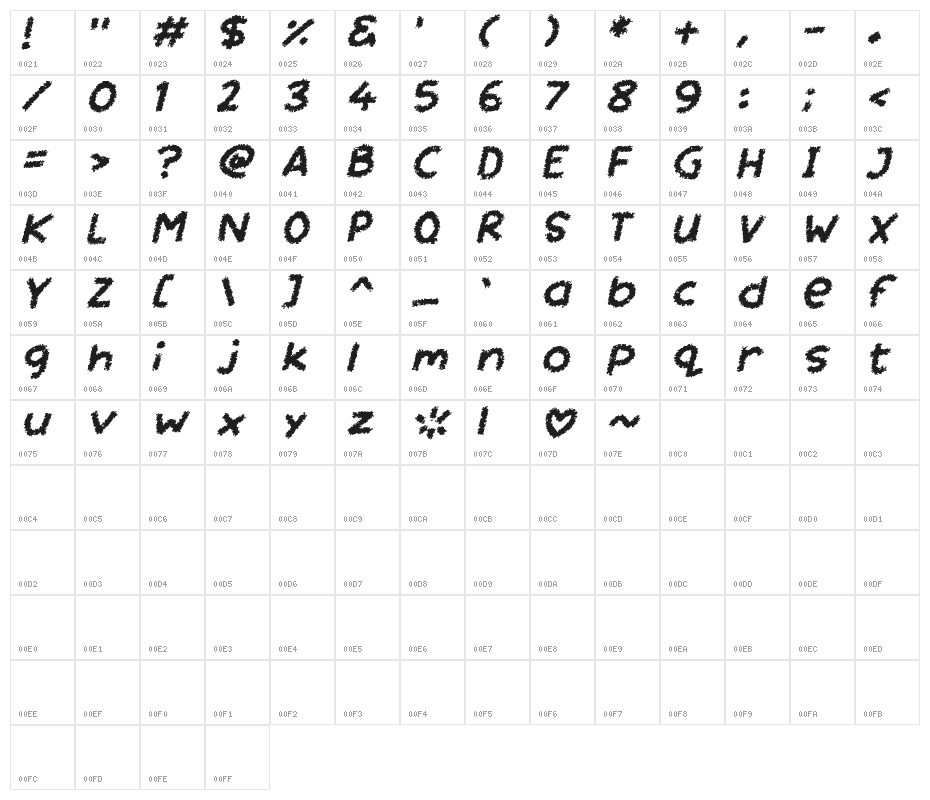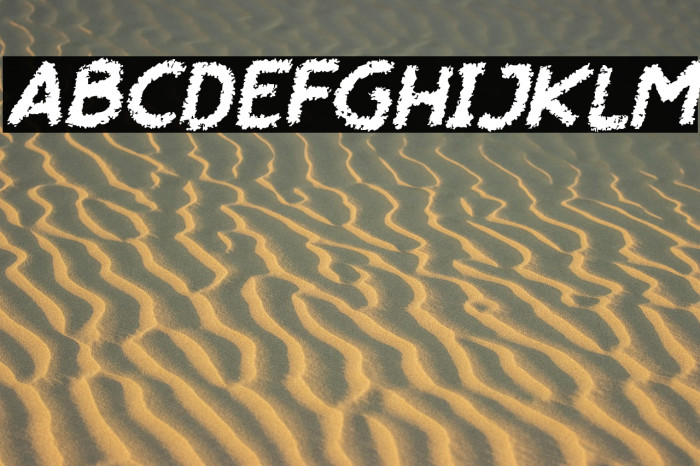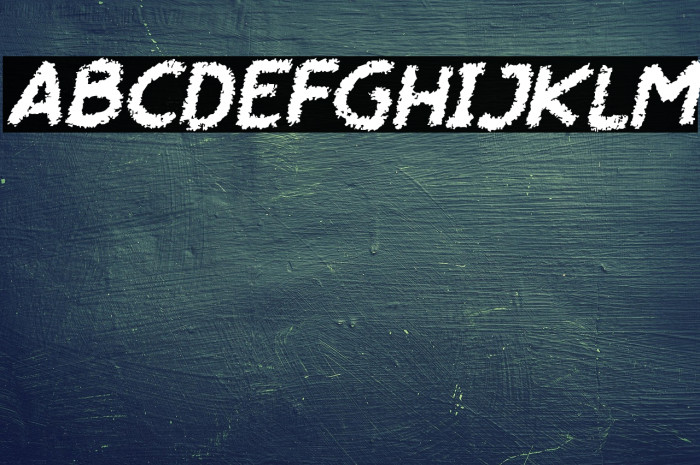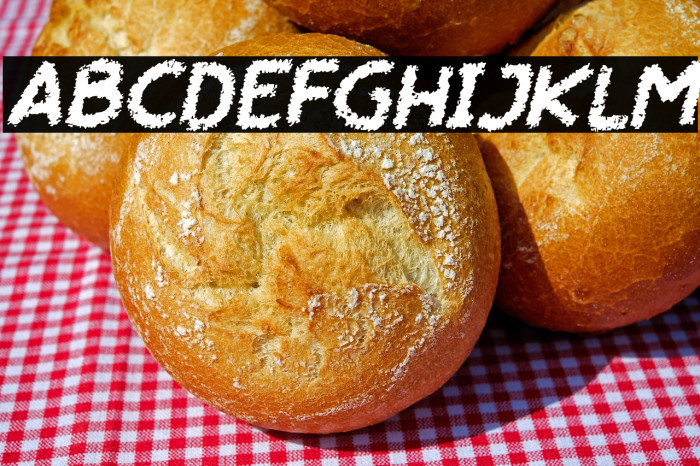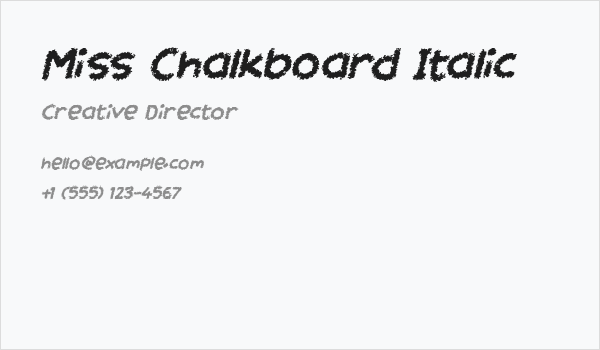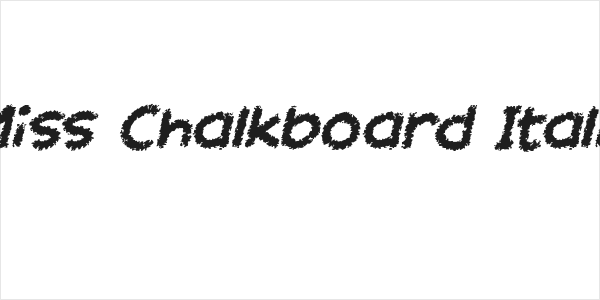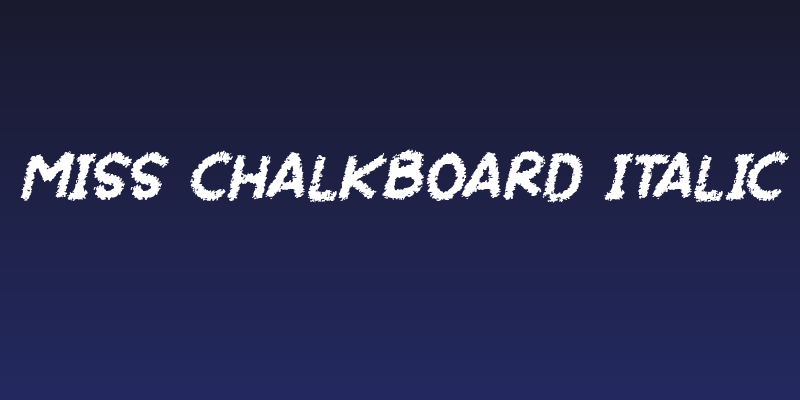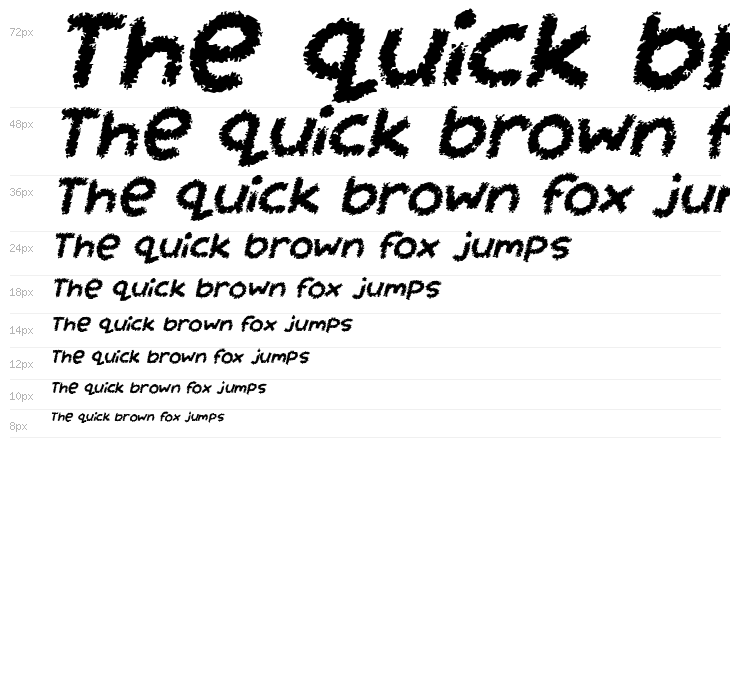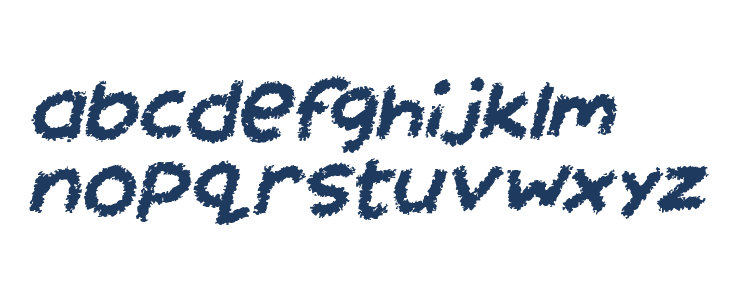
Miss Chalkboard Italic Font
Miss Chalkboard Italic Description
This font exudes a playful and dynamic energy, reminiscent of chalk writing on a blackboard. The characters are bold and slightly italicized, giving them a sense of movement and spontaneity. The edges are rough and textured, mimicking the effect of chalk dust, which adds a tactile quality to the typeface. This style is both informal and approachable, making it ideal for creative and educational contexts. The uppercase and lowercase letters maintain a consistent style, while the numerals and special characters are equally expressive, ensuring a cohesive look across all text elements.
Overall StylePlayful, Creative
Proposed ProjectsIdeal for educational materials, children's books, playful branding, and creative posters.